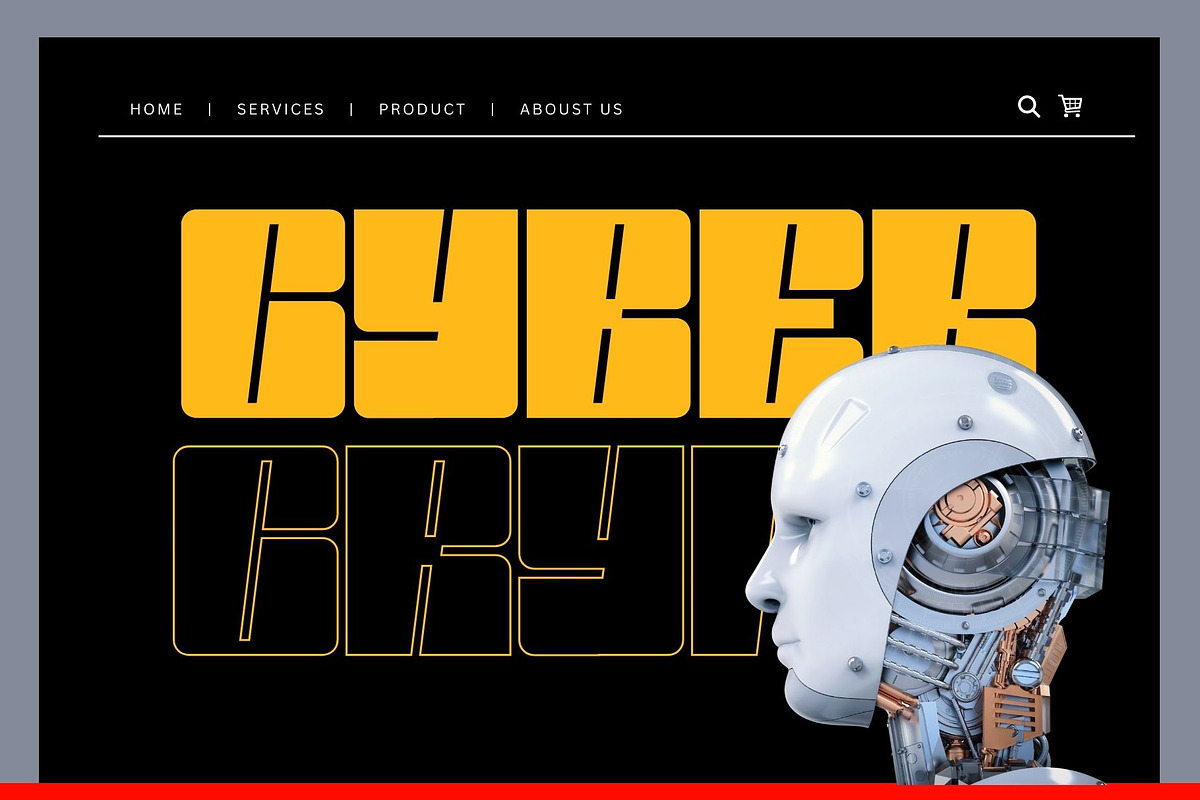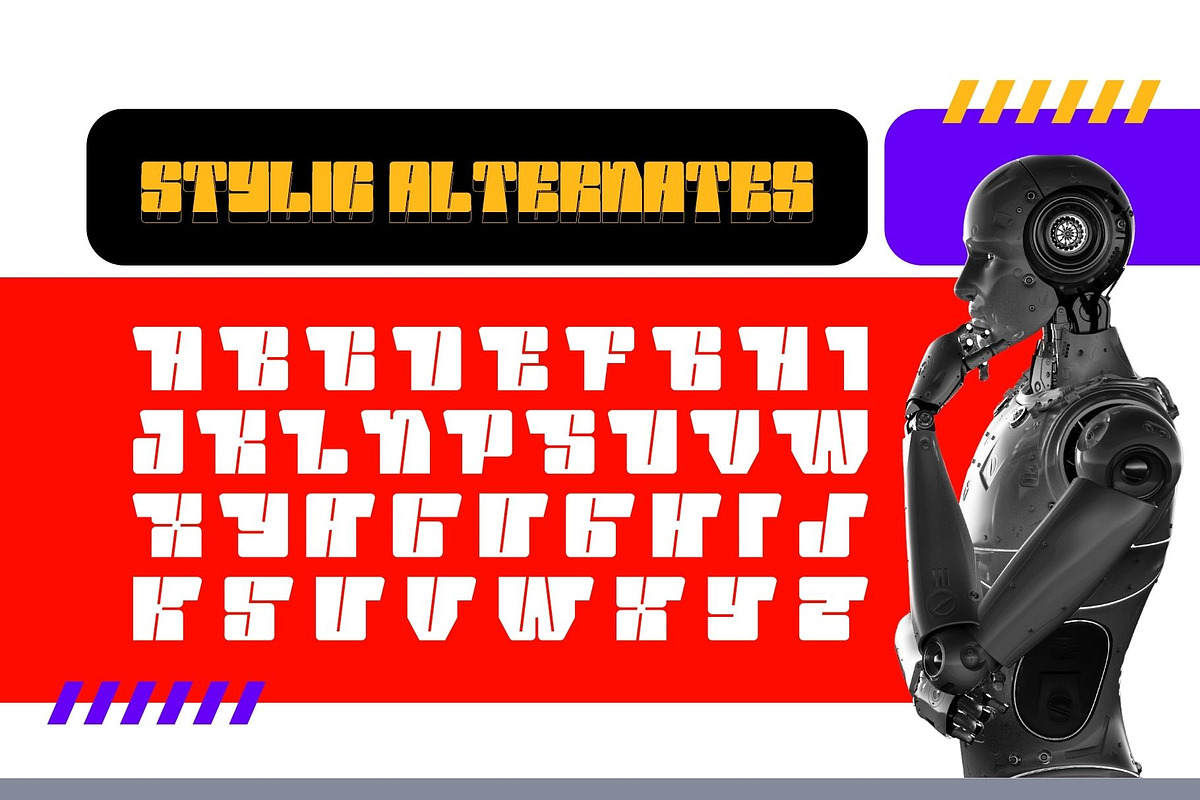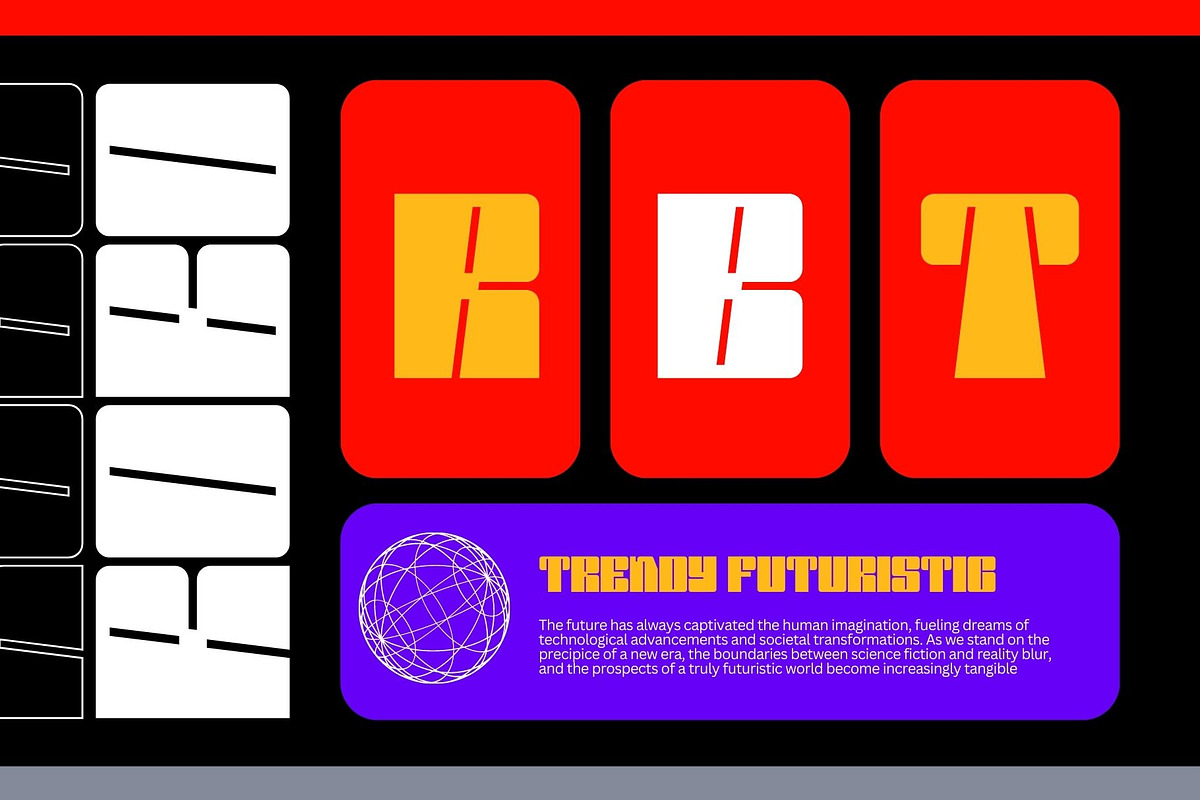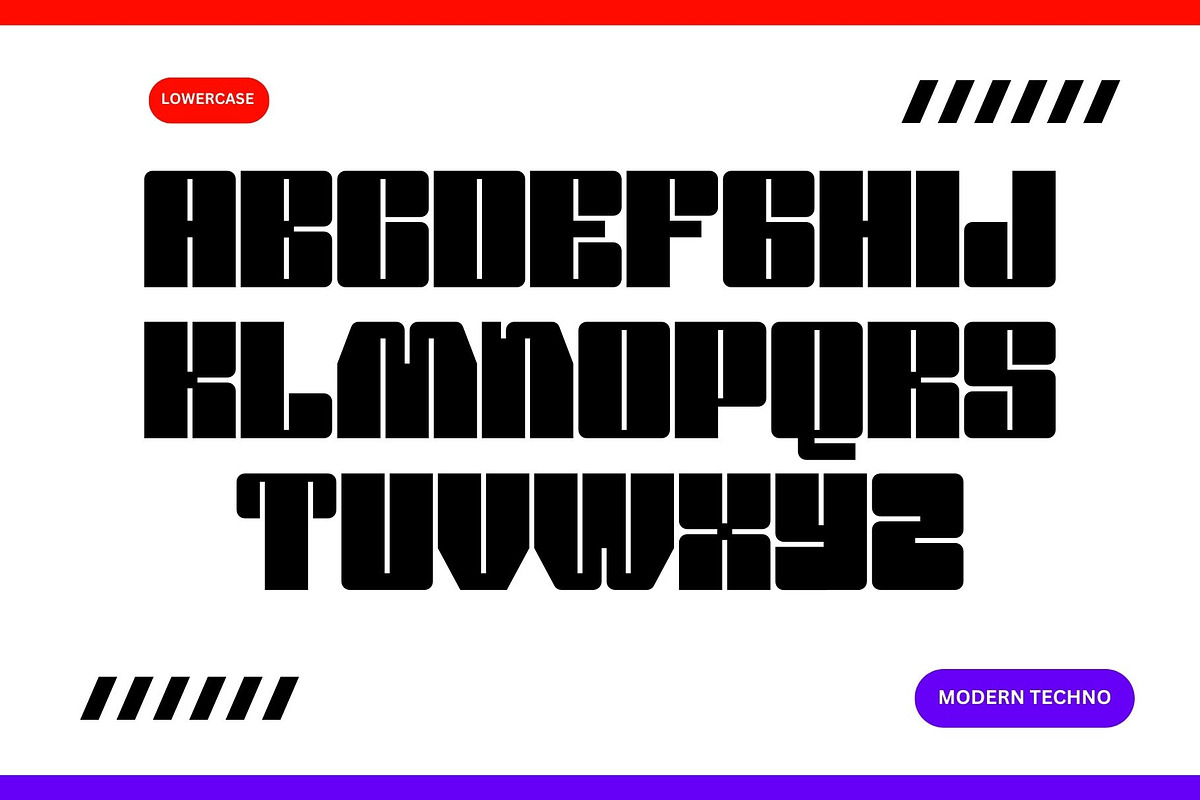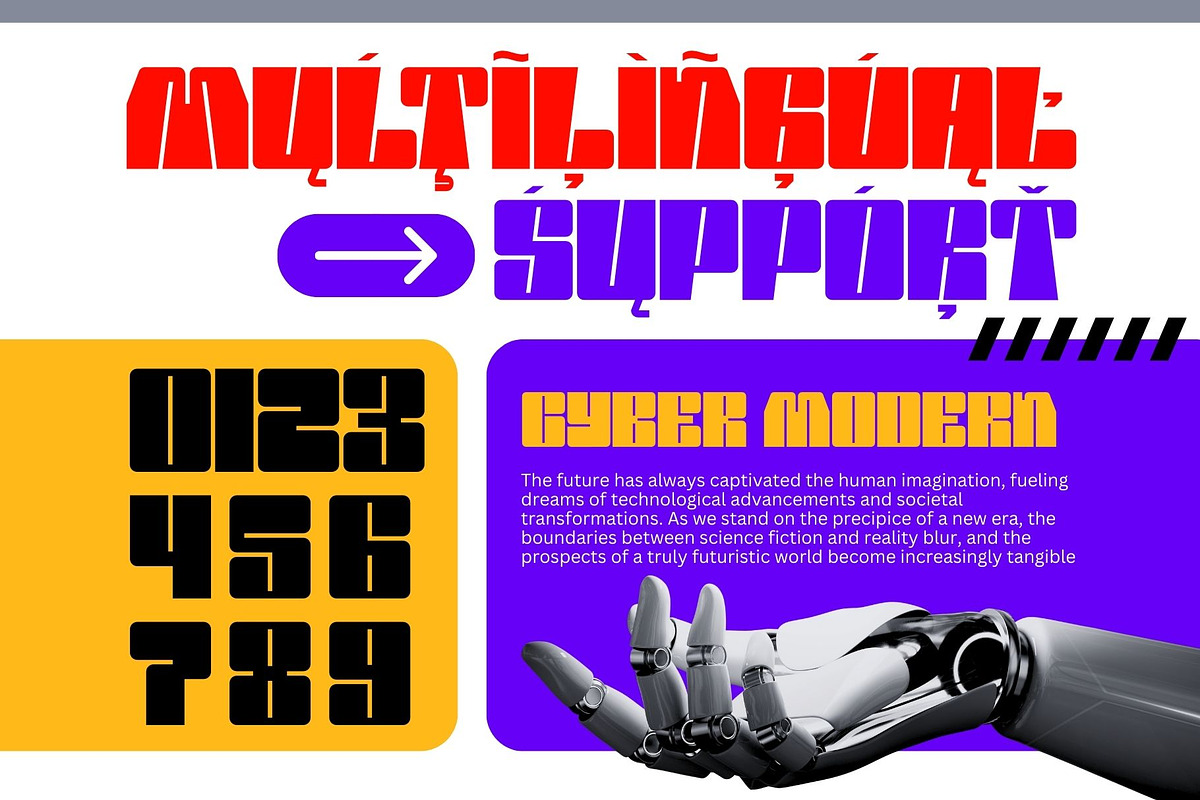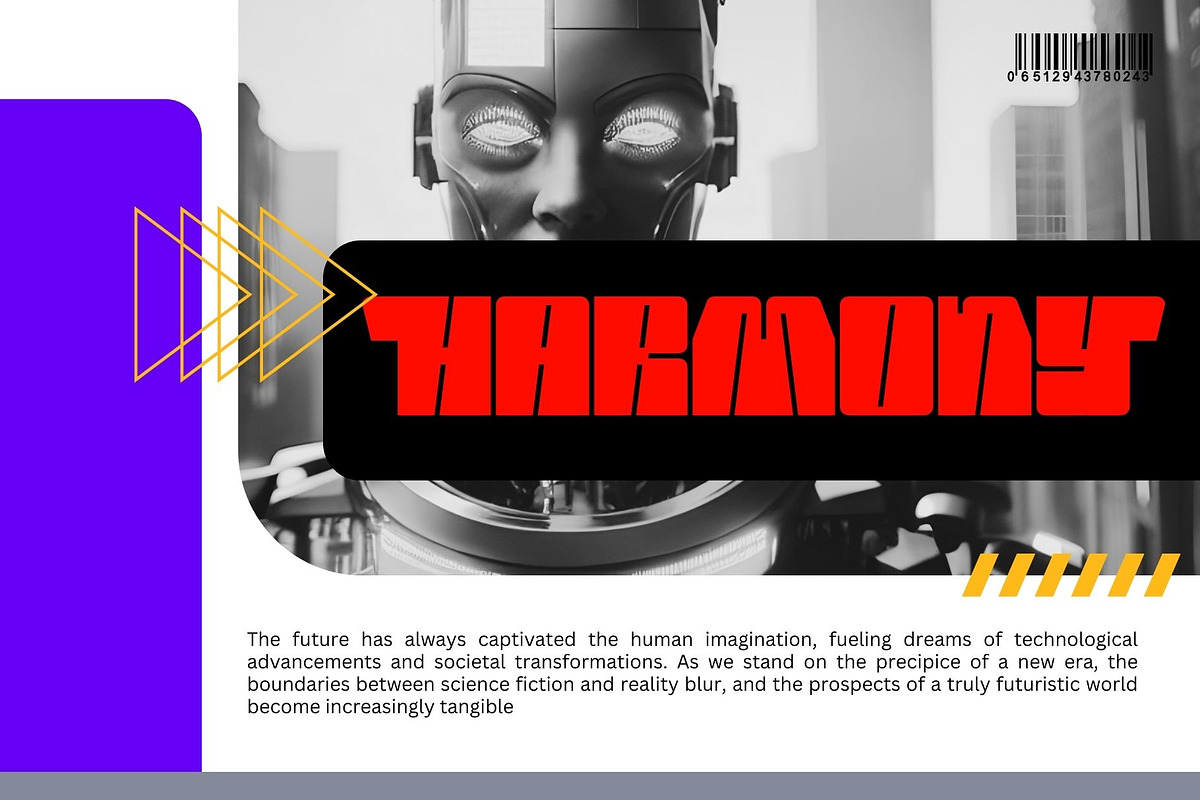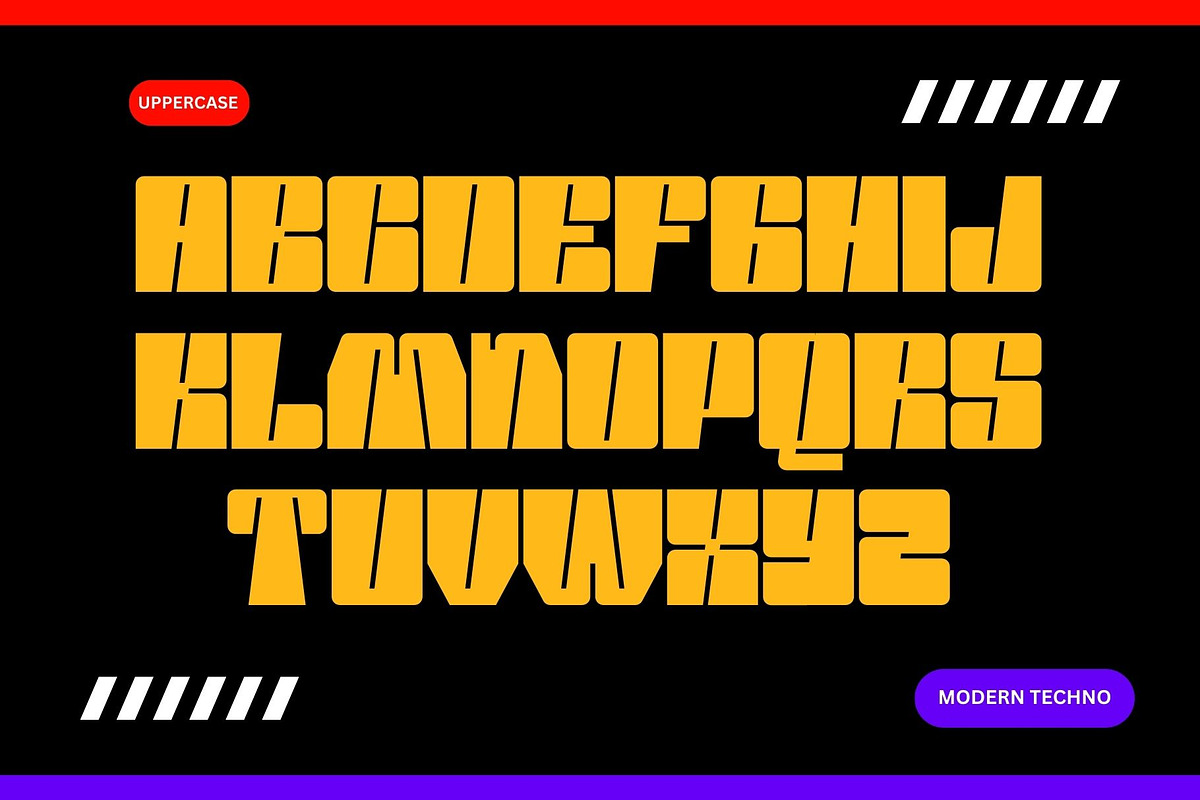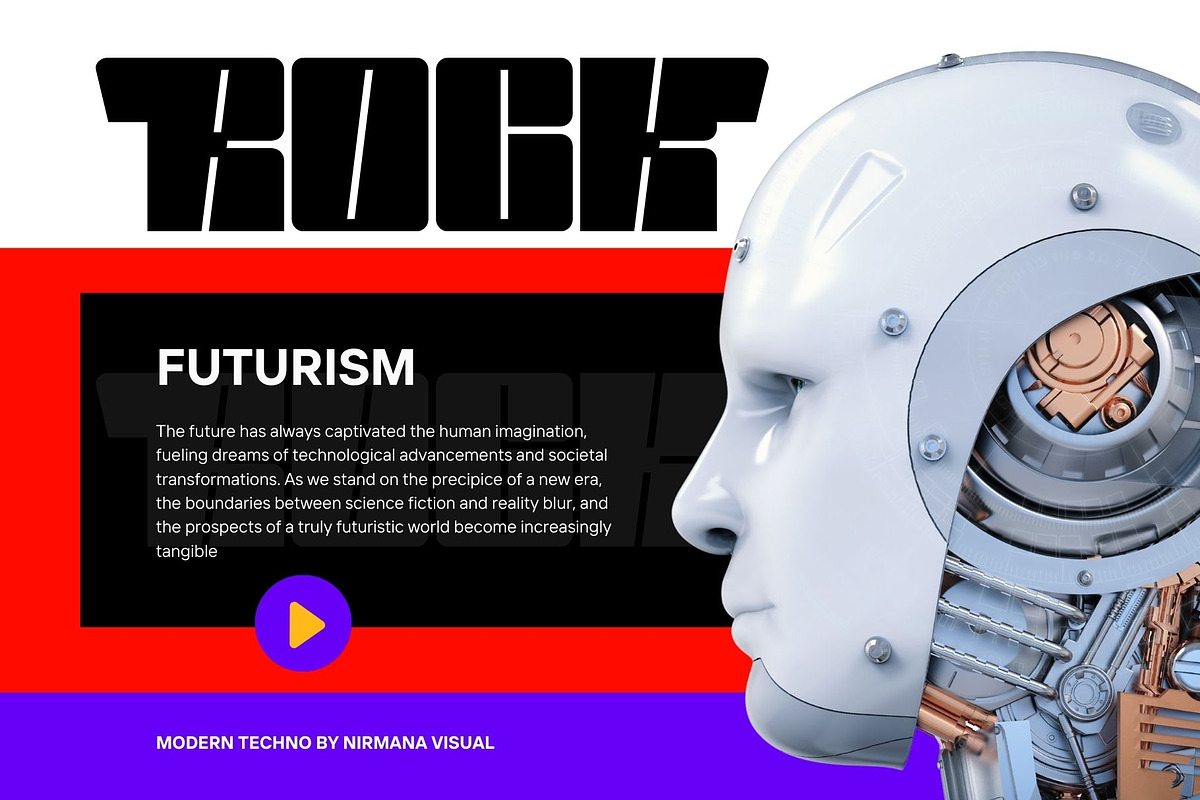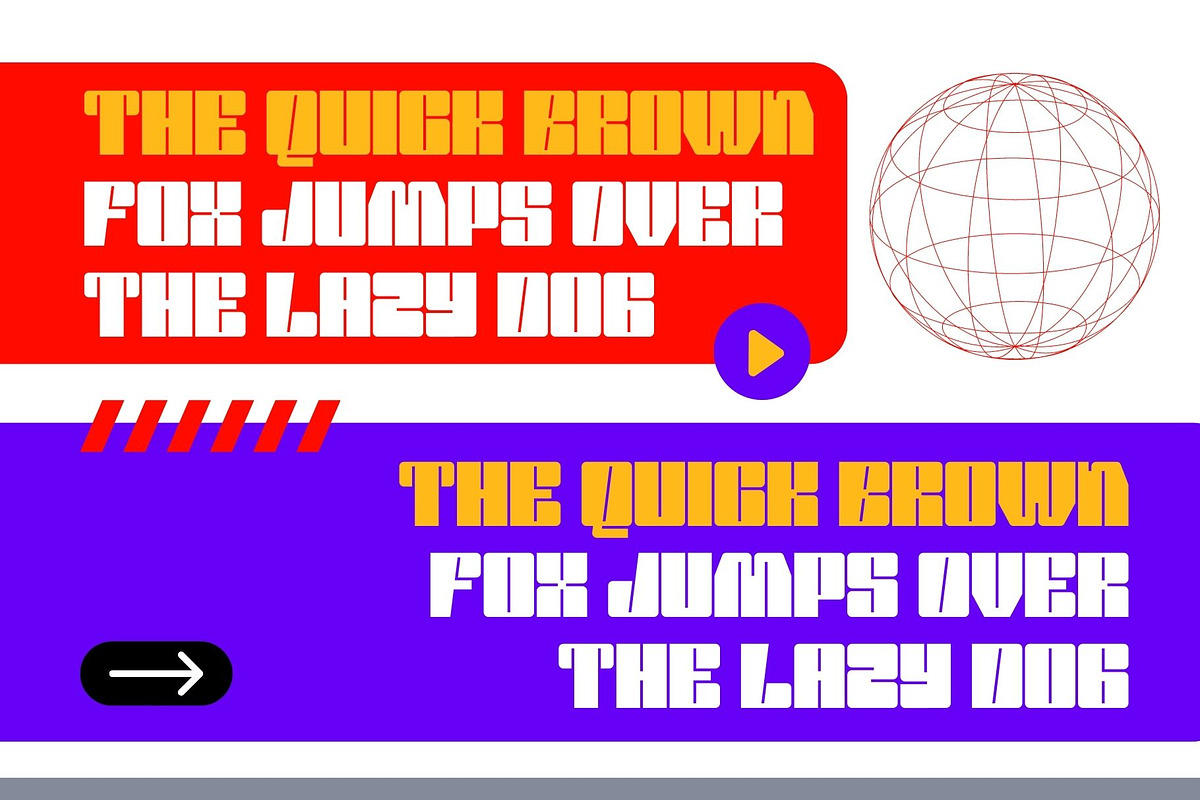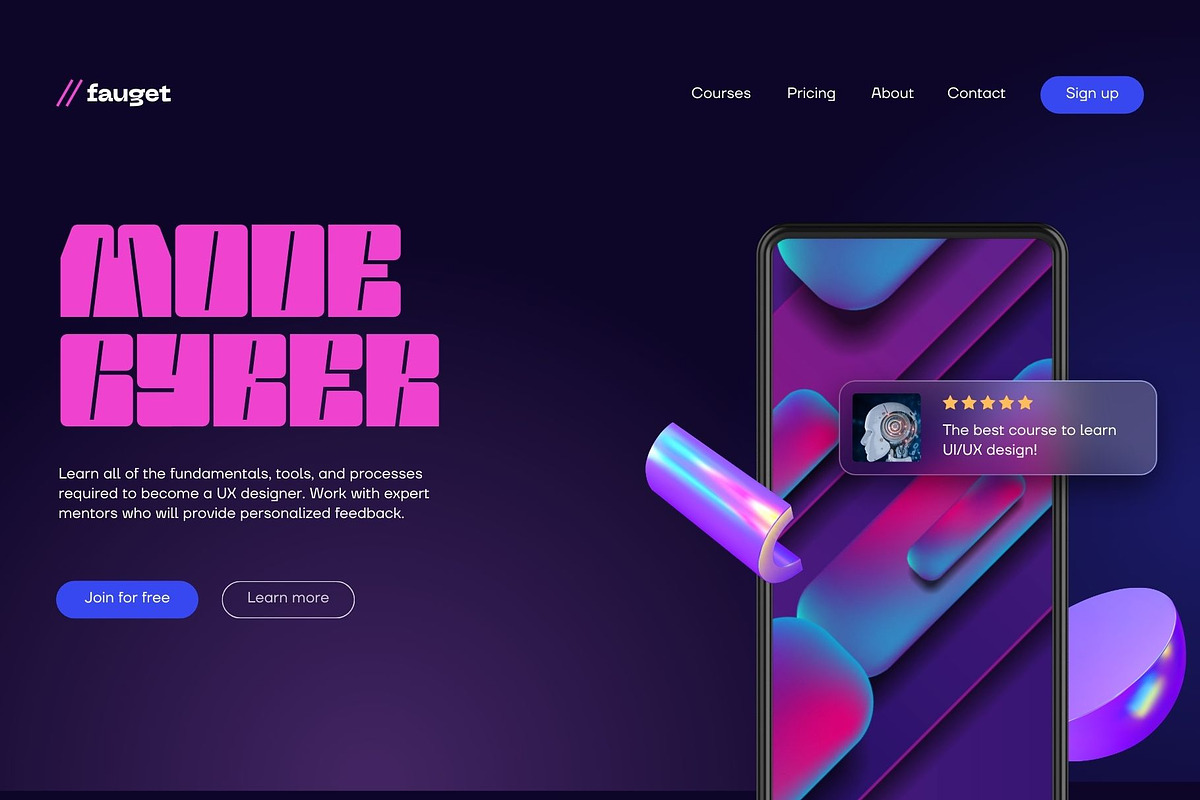
Modern Techno - Display Typeface
Modern Techno beautiful typographic harmony for a diversity of design projects, including logos & branding, social media posts, advertisements & product designs.